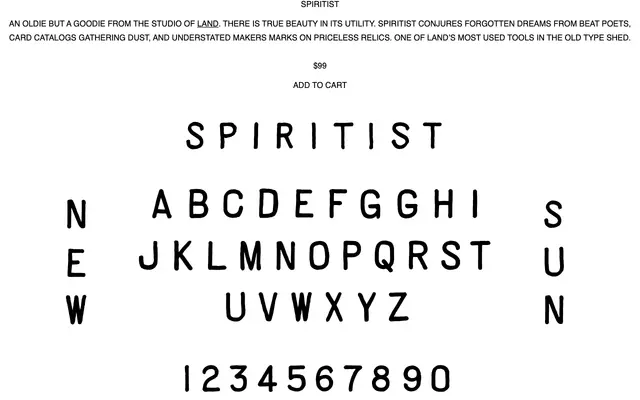
Spiritist
Wabi Sabi Type · Land
A vintage-inflected display face from the studio of Land, evoking beat poetry, dusty card catalogues and the understated marks of craftspeople.
Described by the foundry as one of Land's most-used tools, Spiritist carries the quiet character of ephemera and hand-stamped relics rather than loud decorative excess. Its appeal lies in utility tempered by personality, making it suited to branding, editorial work and packaging where a worn or archival sensibility is wanted. The foundry's copy positions it as a trusted workhorse rather than a novelty.
The evocative copy referencing beat poets, card catalogues and makers marks suggests a characterful display face with vintage or antique qualities, likely a display serif with artisanal character.